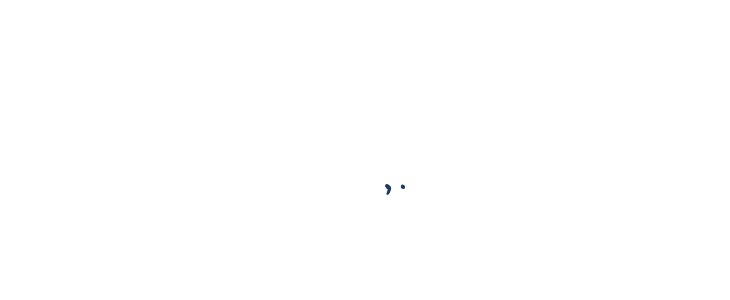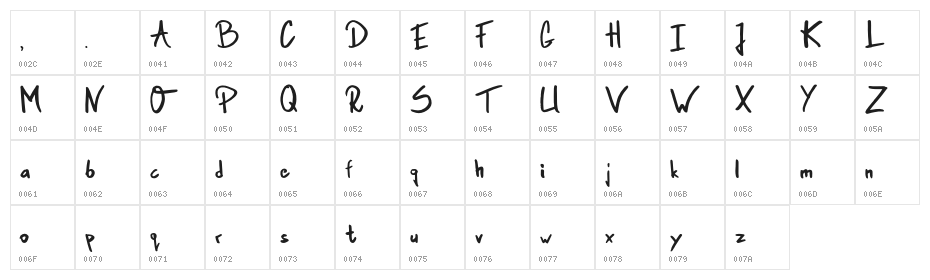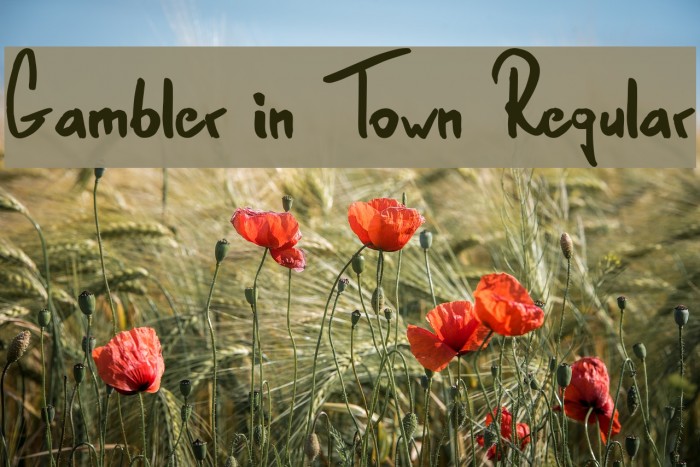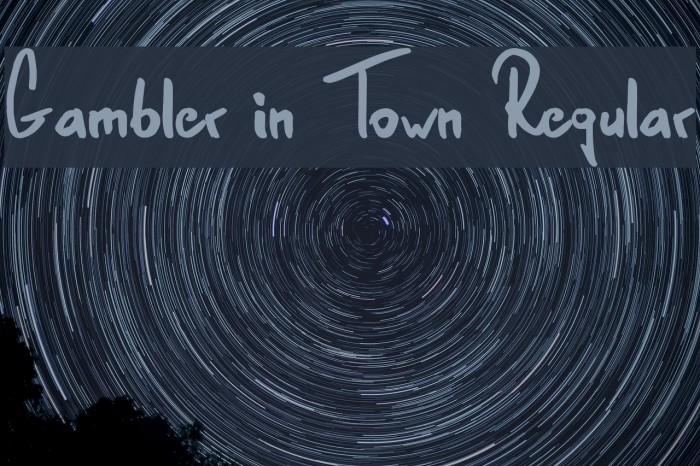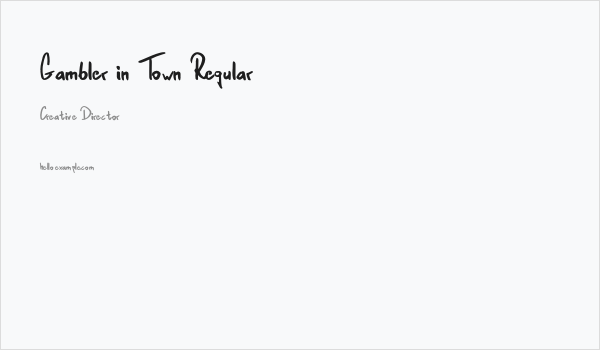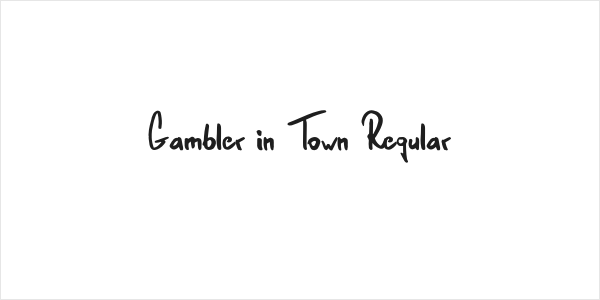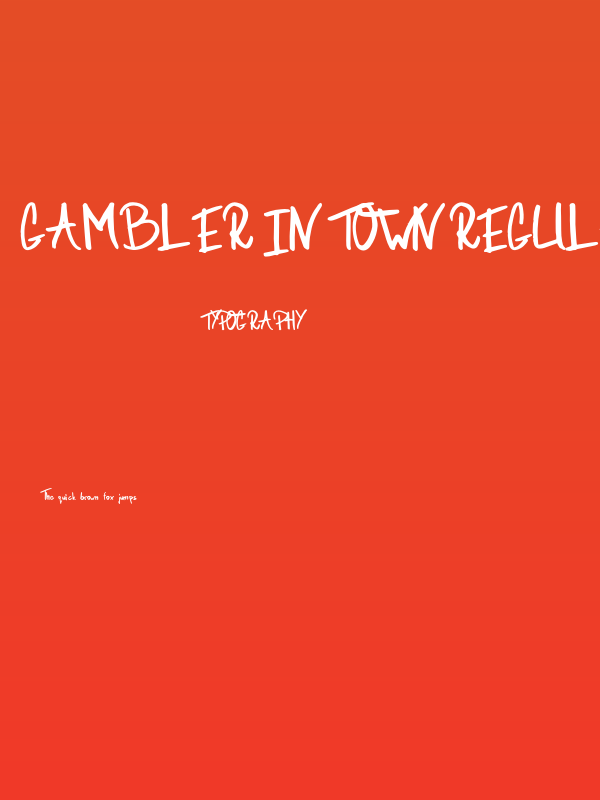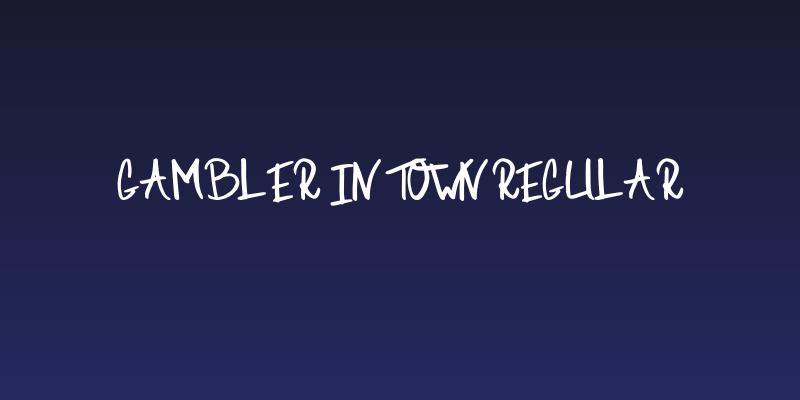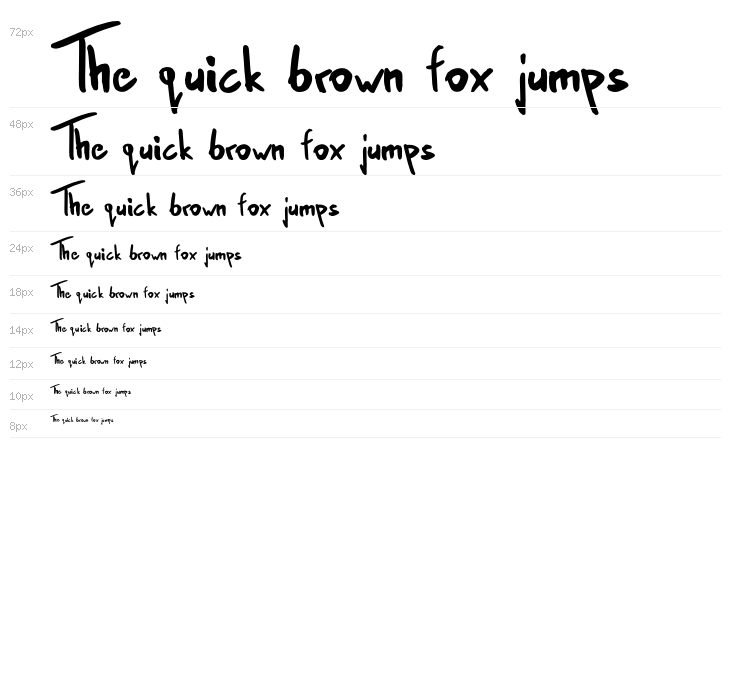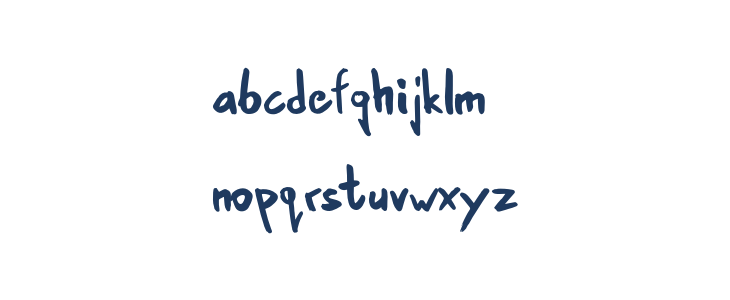
Gambler in Town Regular Font
Gambler in Town Regular Description
This font features a playful and dynamic handwritten style, characterized by its irregular strokes and casual appearance. The uppercase letters are bold and slightly slanted, giving a sense of movement and energy. The lowercase letters maintain a consistent flow, with some letters extending below the baseline, adding to the informal and relaxed vibe. The numbers and special characters follow the same lively aesthetic, making the font suitable for creative and informal applications. Its unique style makes it stand out, while still being legible and versatile.
| Proposed Projects | Ideal for greeting cards, posters, children's books, and creative branding projects. |